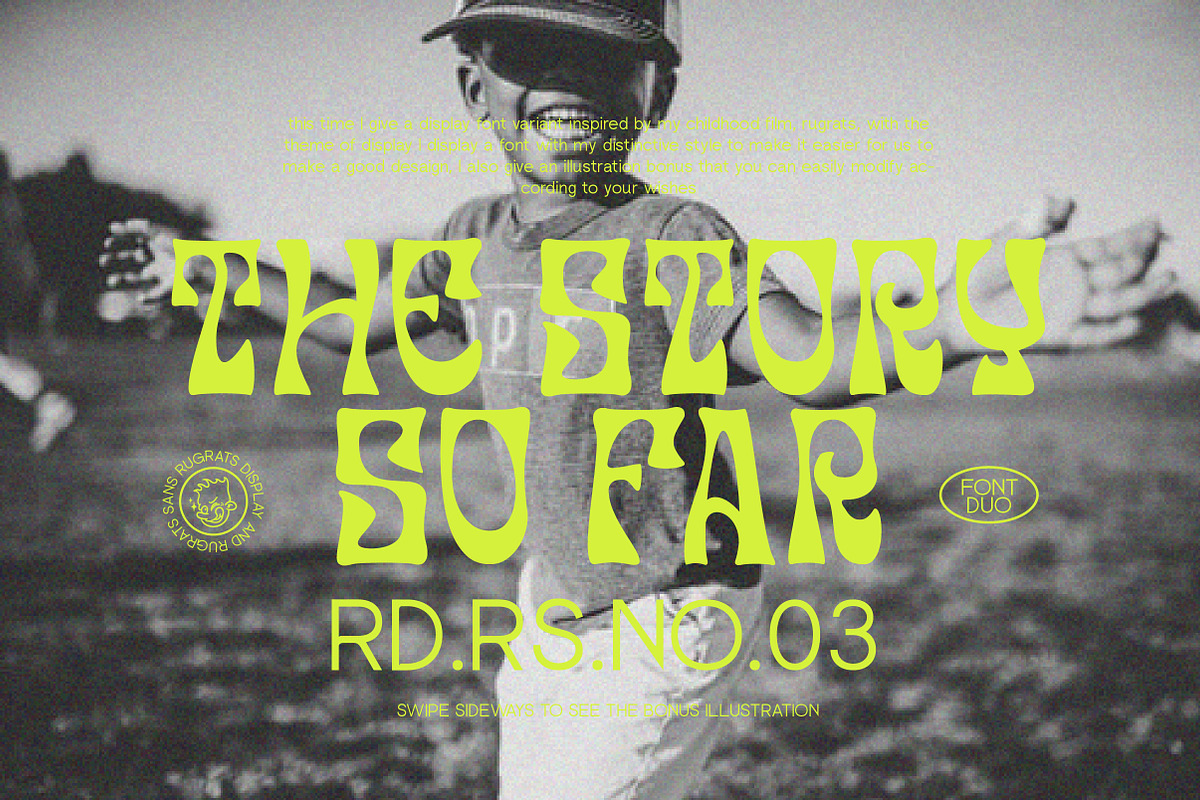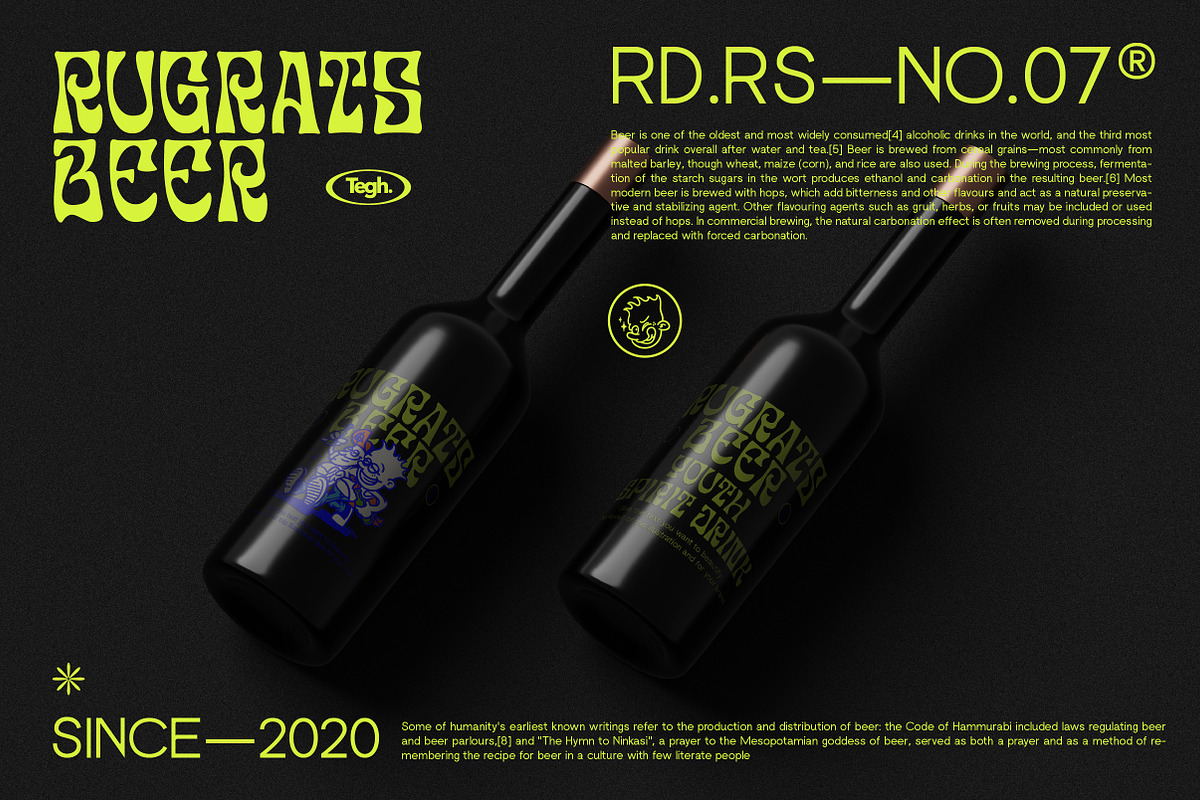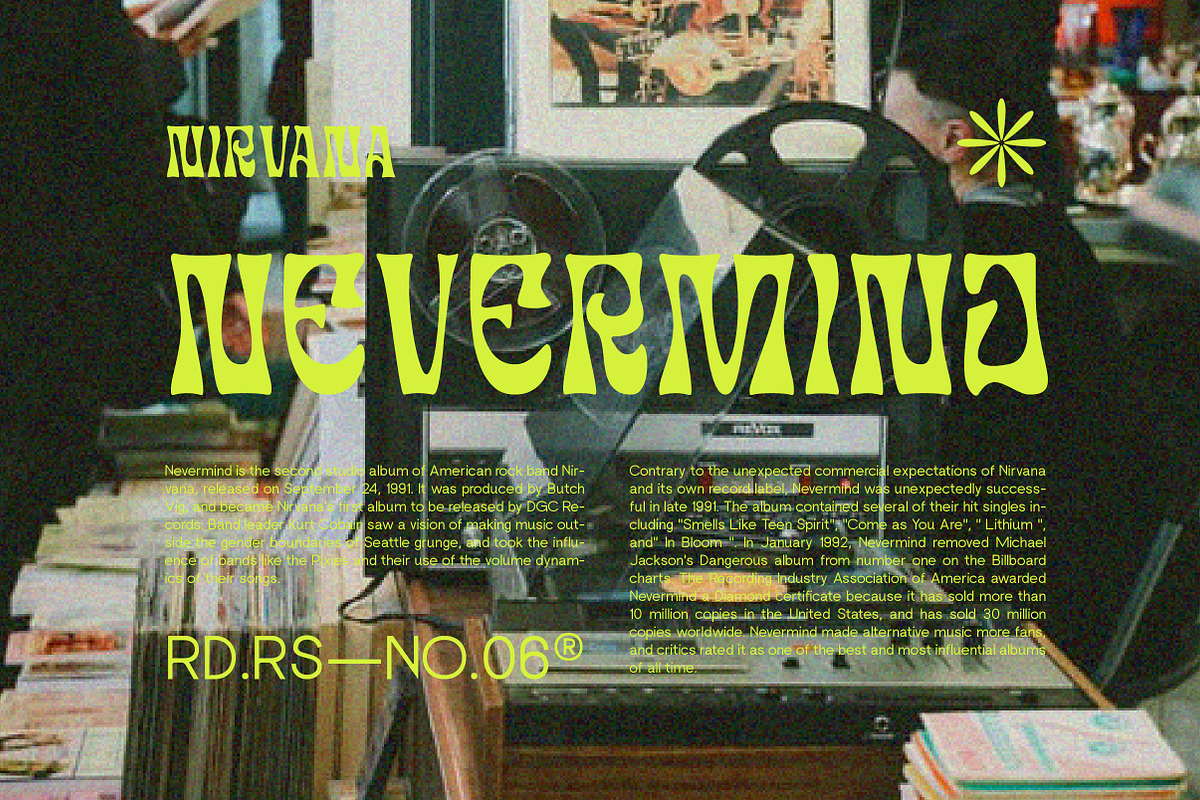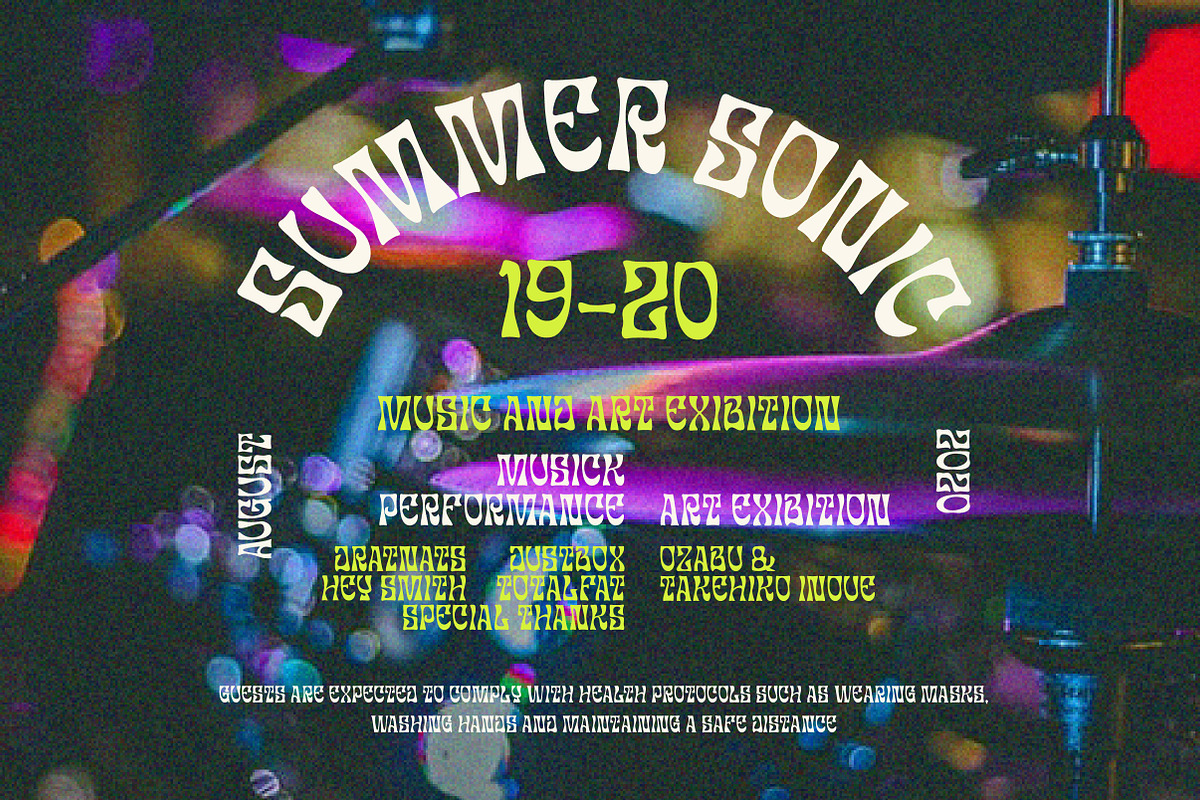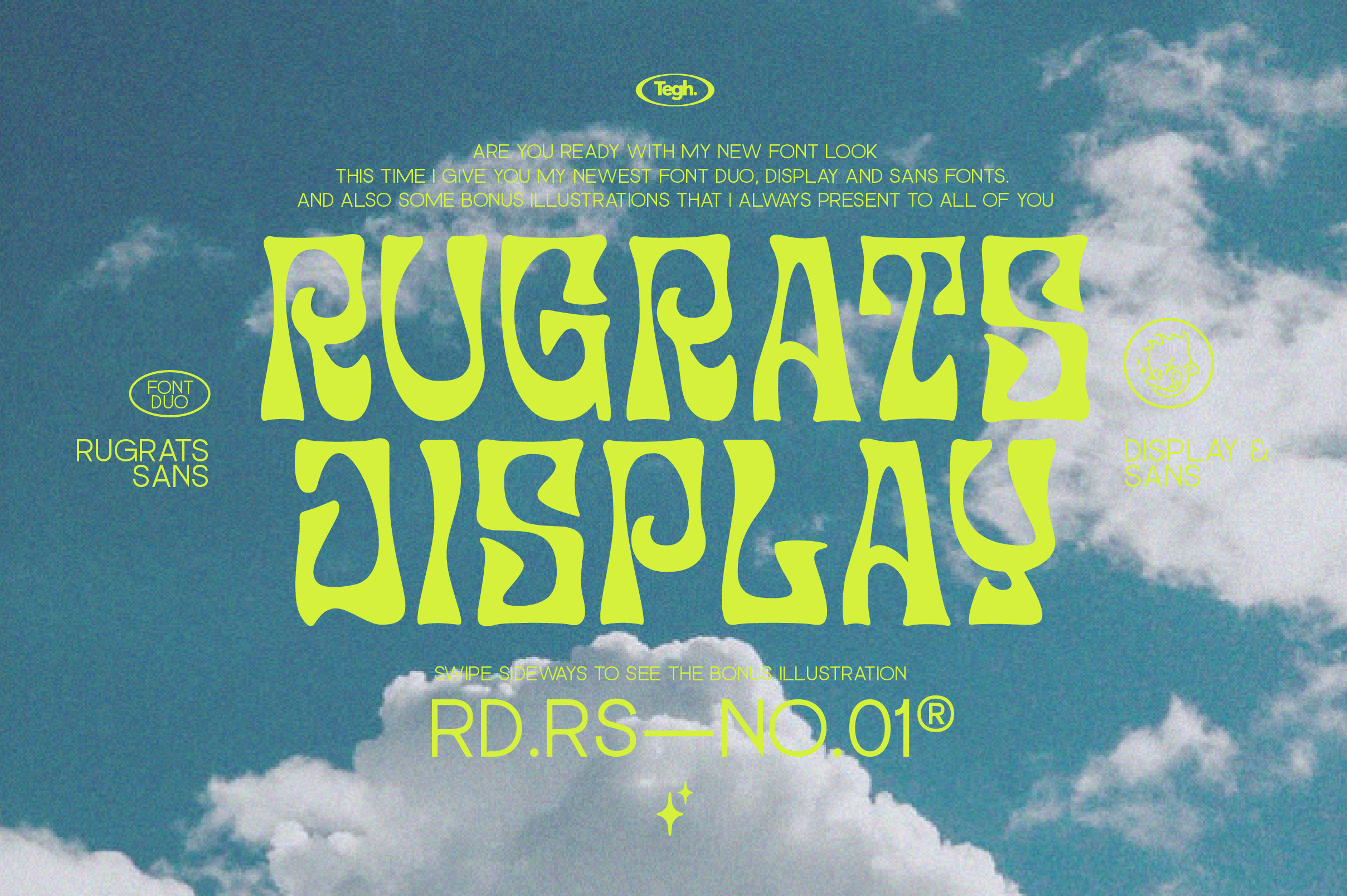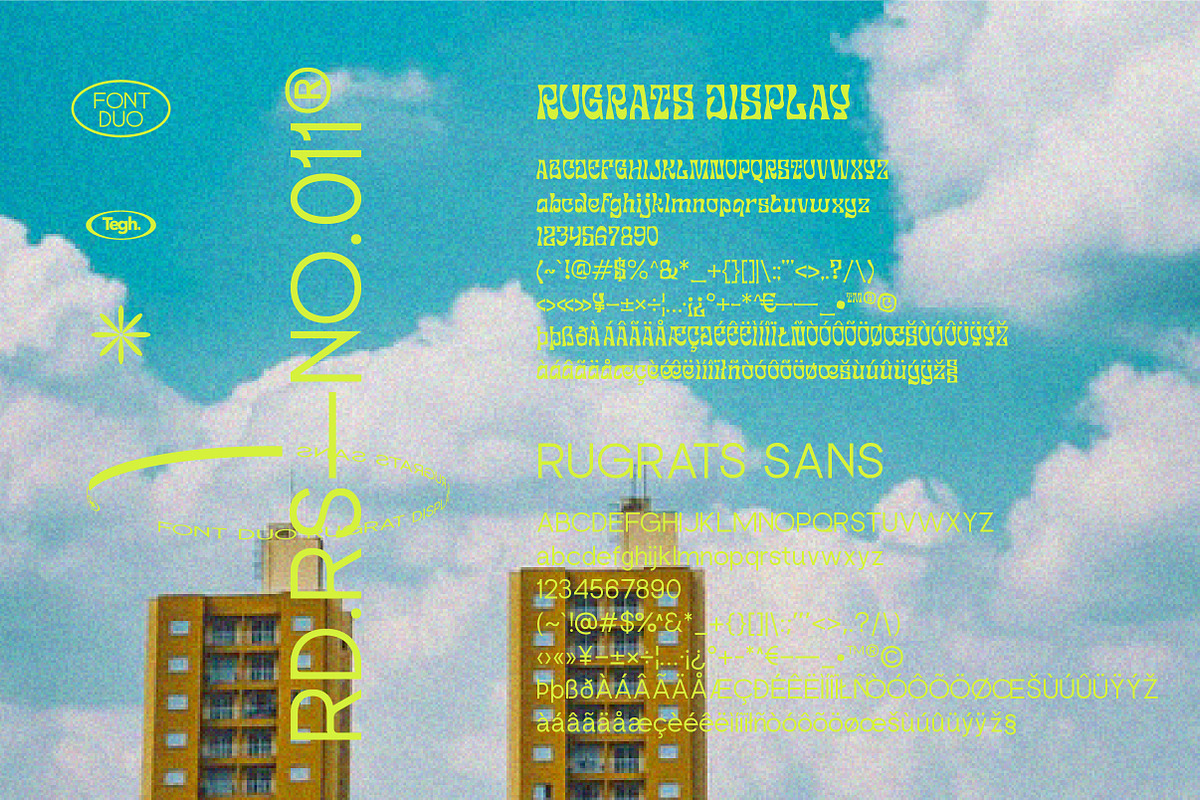
Rugrats font duo + badge
hello this time I made two fonts with one unit that you can easily use for your design needs, I give you a display of fonts and sans serif fonts as a support, and don't forget I also give a free bonus in the form of a badge design that you can easily use. use it easily, you will easily make a design with the font that I made, because I made this font with the aim of making it easier for you to make designs such as posters, layouts and more